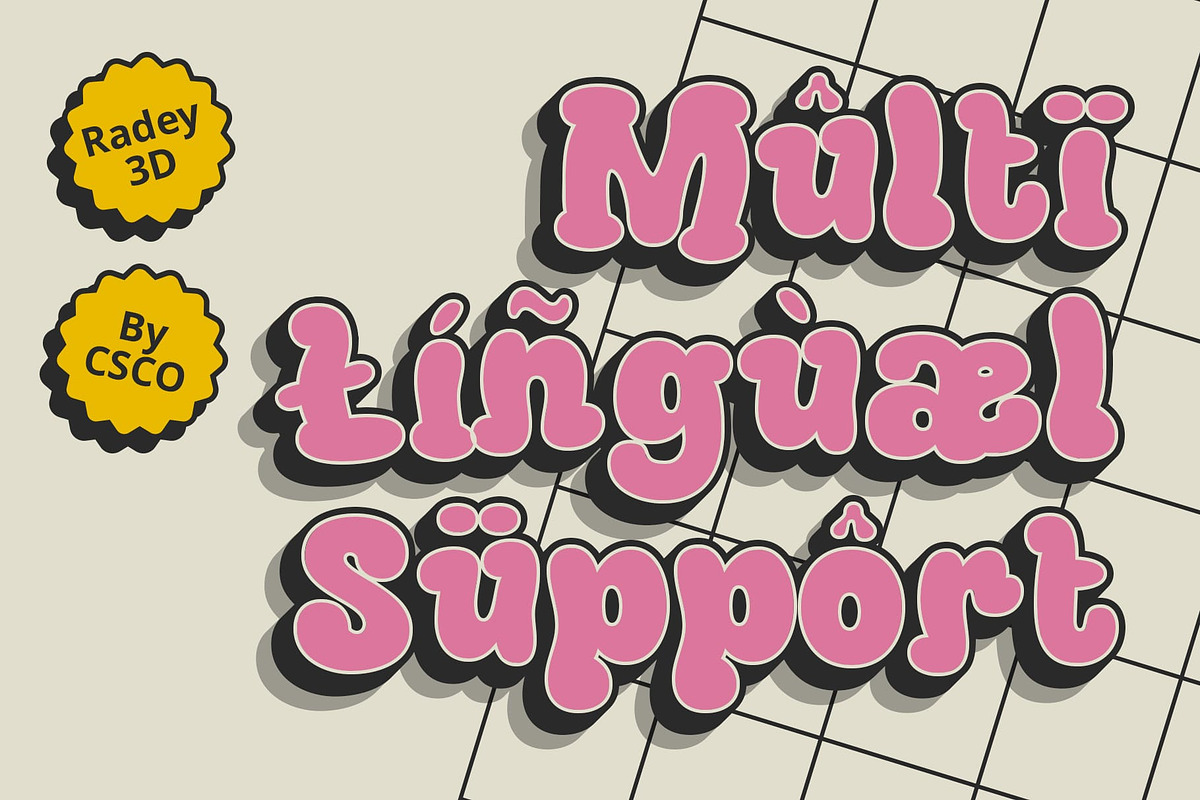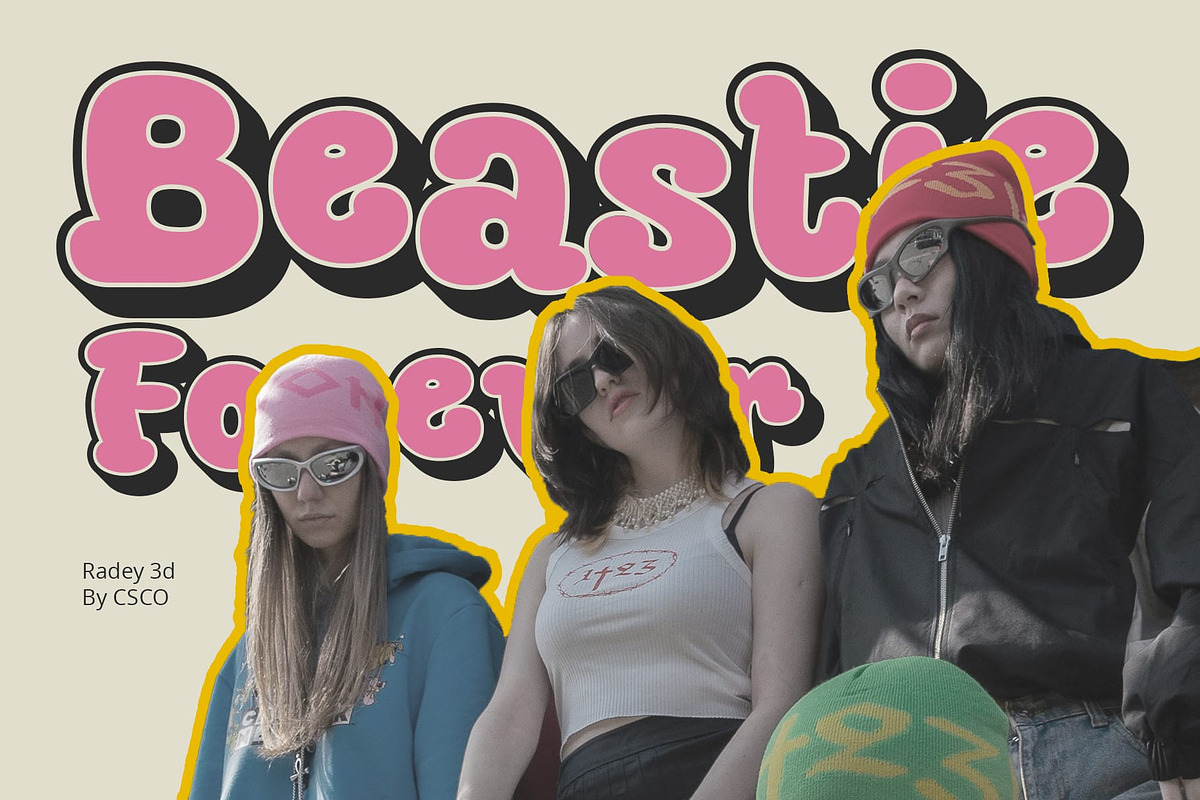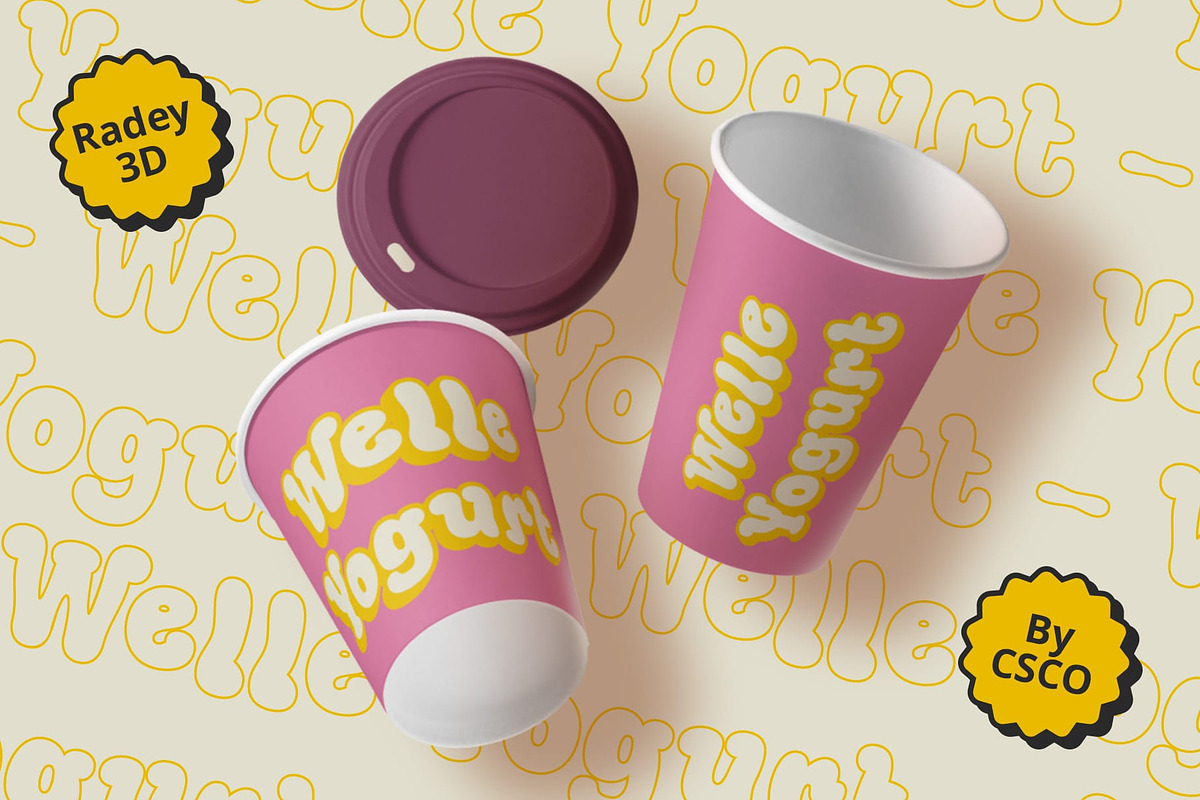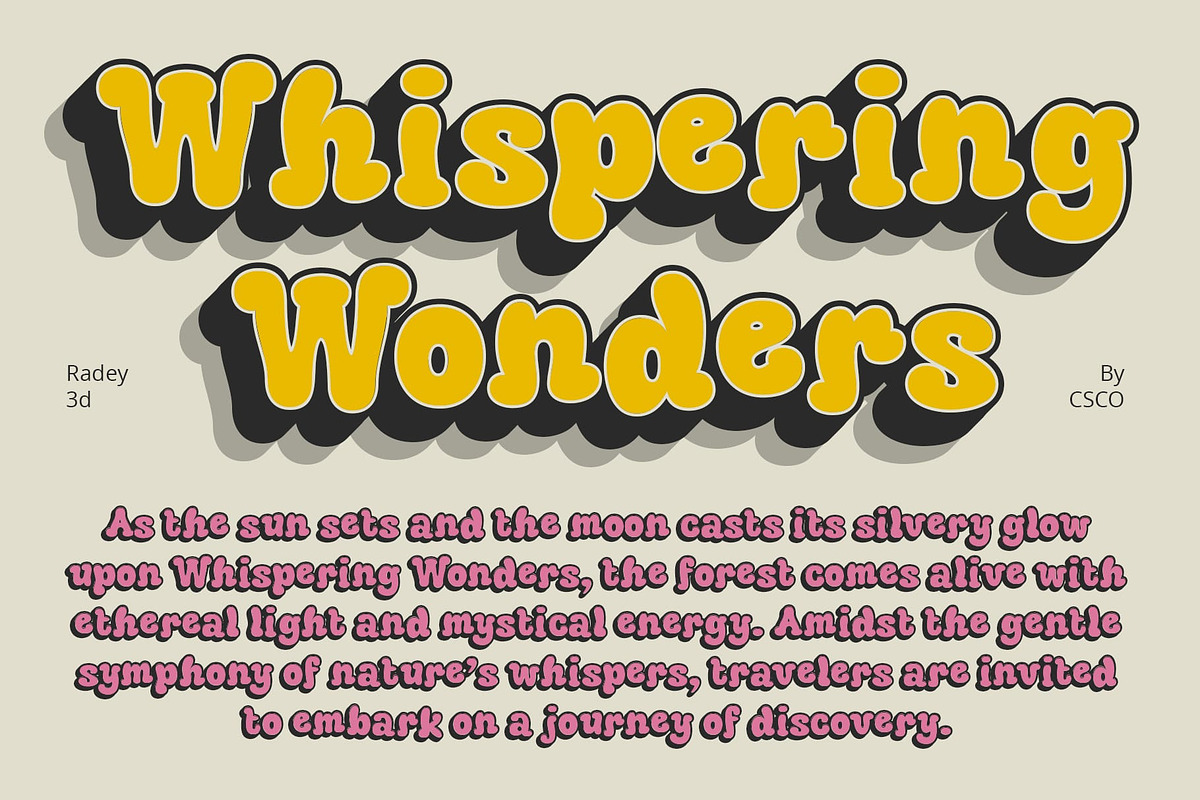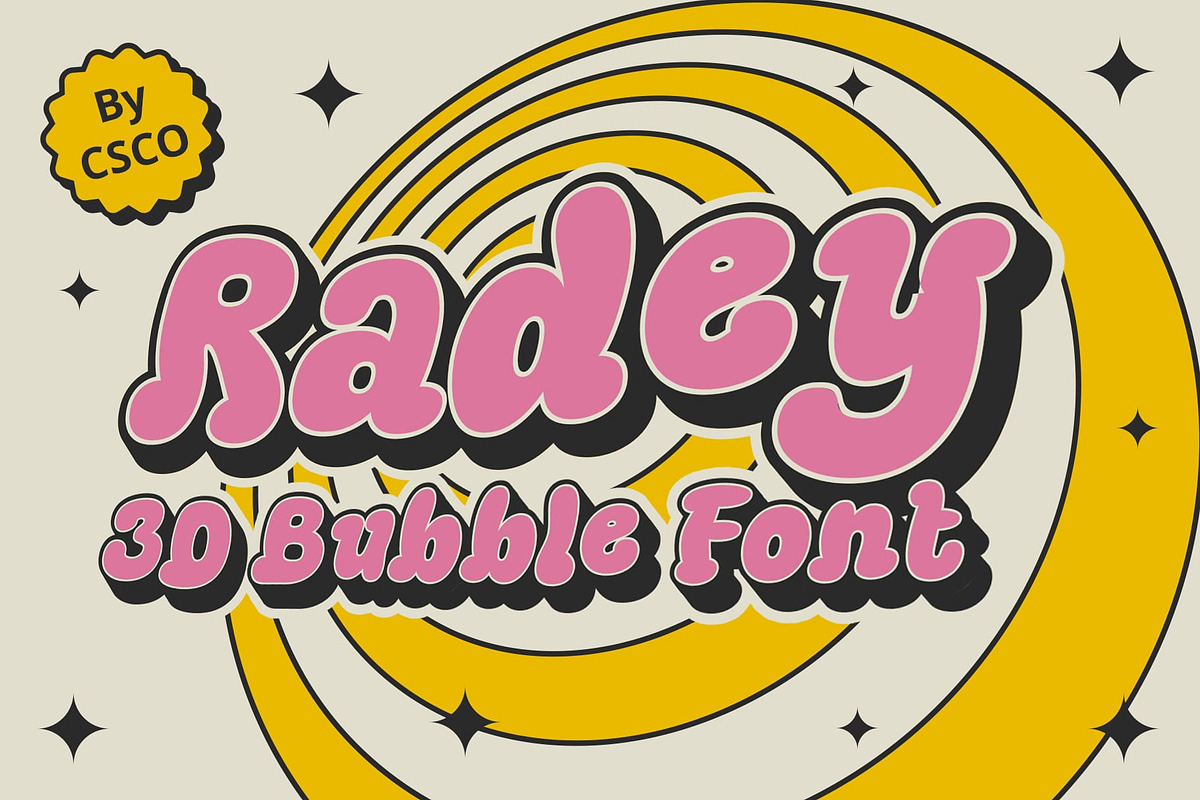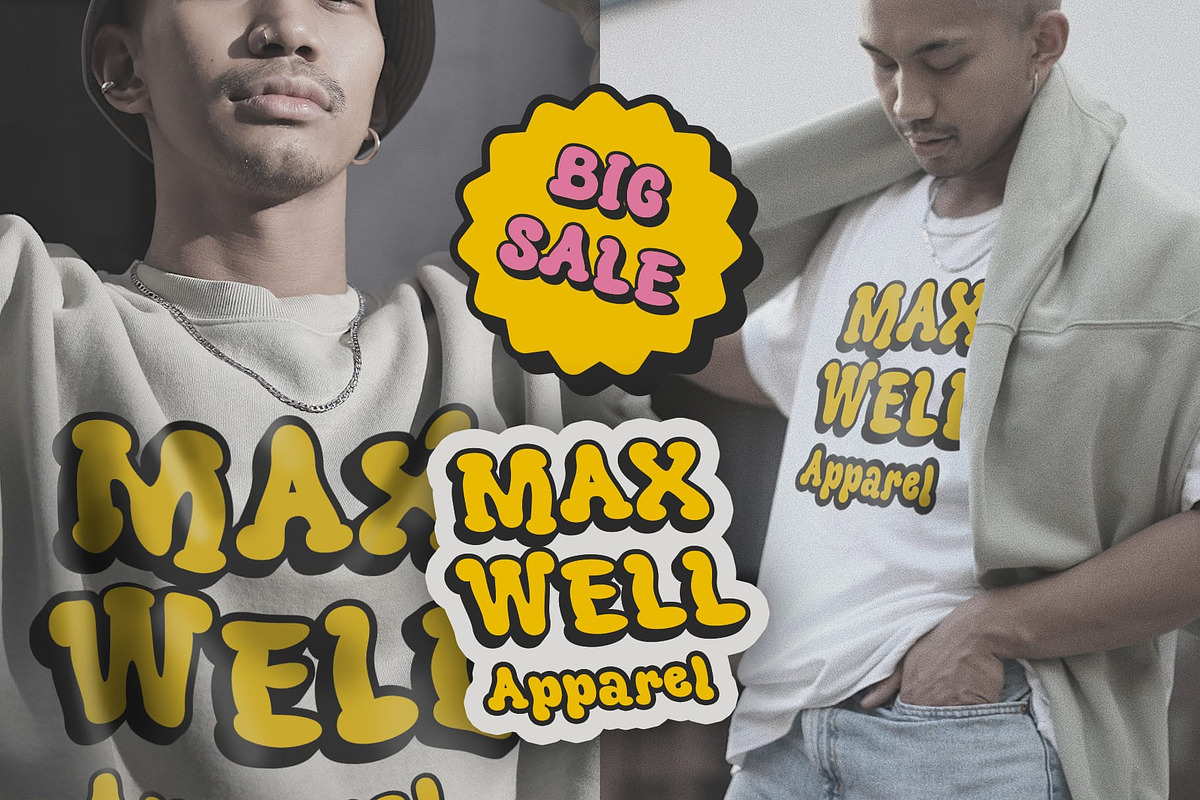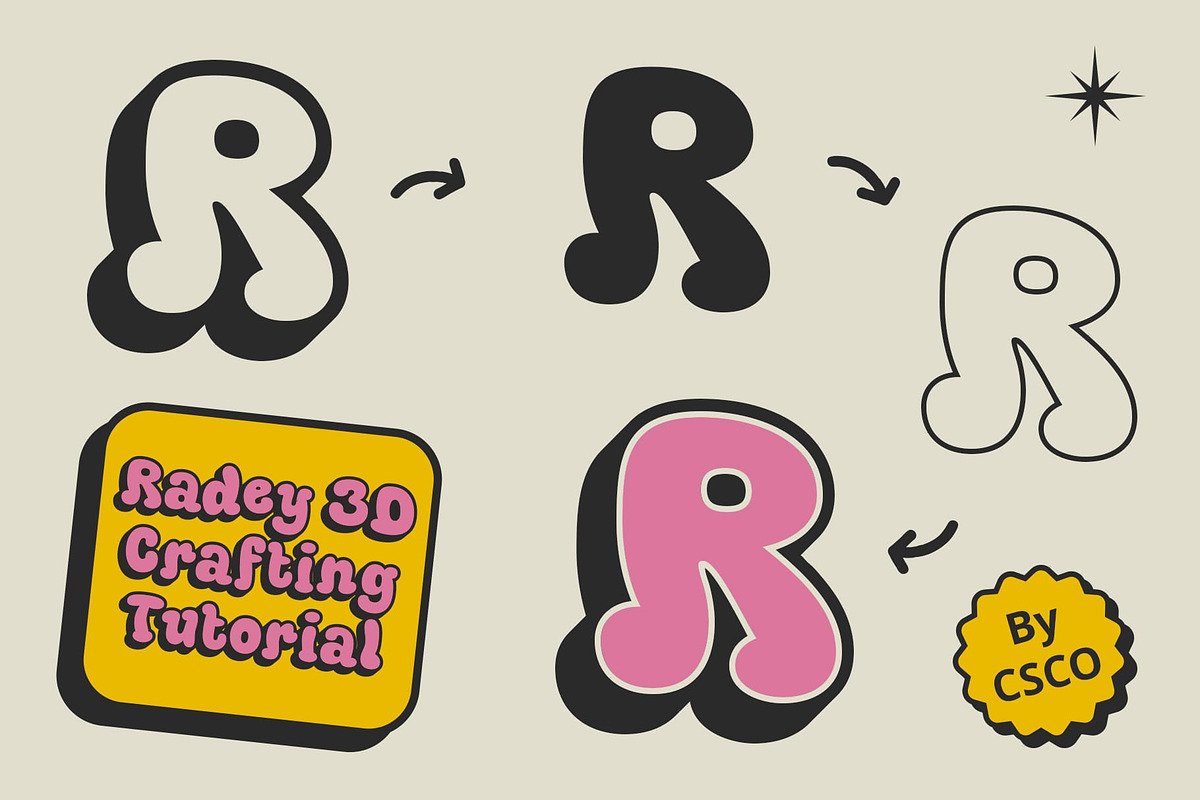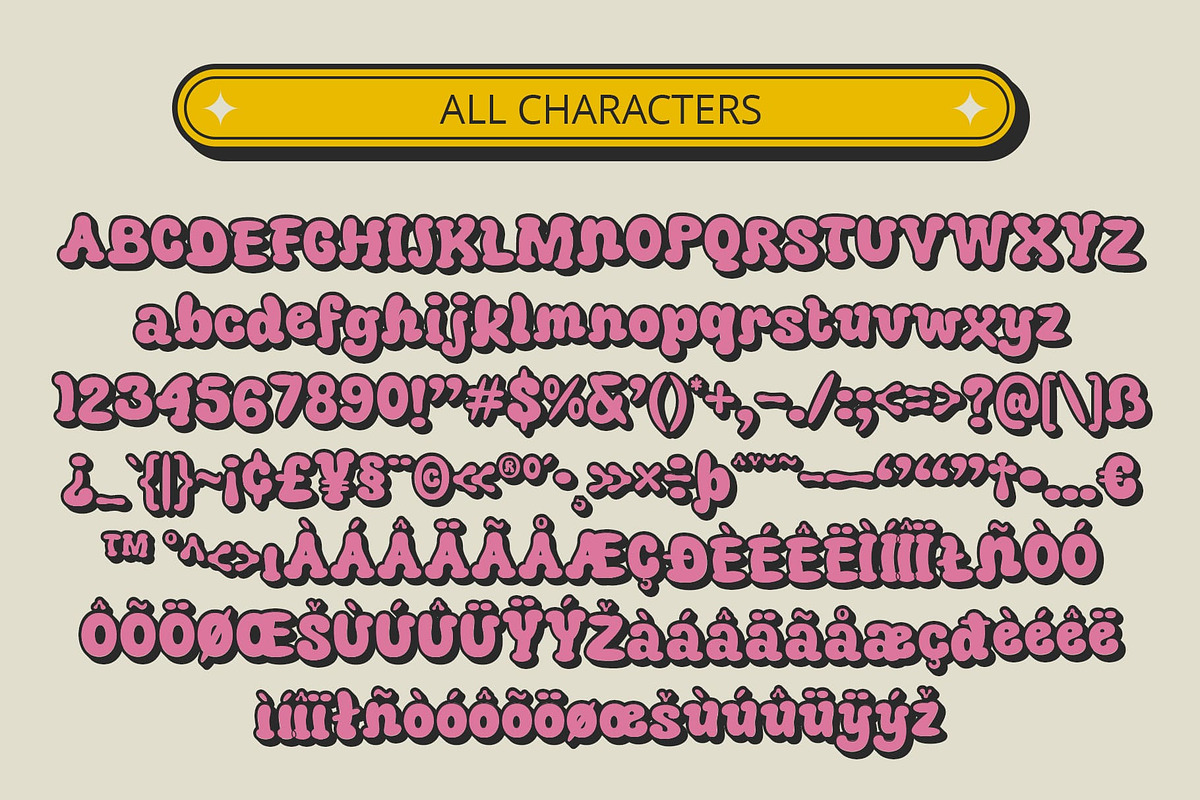
Radey 3D
Radey 3D: A Playful Bubble Display Typeface
Bubble-Inspired Design Radey 3D presents a delightful display font inspired by the whimsy of balloons. Its bubbly shapes evoke a sense of joy and playfulness, making it perfect for attention-grabbing headlines and signage.
Dynamic Outline and Extrude Effects Enhanced with dynamic outline and extrude effects, This font adds depth and dimension to its bubbly forms. The combination of these effects creates a striking visual impact that commands attention.
Tailored for Display Purposes Designed specifically for display use, This font excels in various applications, from advertisements to event promotions. Its bold, three-dimensional appearance ensures that your message pops and stands out effectively.
Versatility in Design Despite its playful appearance, This font offers versatility in design. Whether you’re creating posters, logos, or digital graphics, this font’s bubbly charm adds a touch of whimsy and character to any project.
Playfulness Meets Impact This font combines the playful charm of bubble-inspired design with dynamic outline and extrude effects, resulting in a font that is both fun and impactful for display purposes. Elevate your designs with the lively energy of Radey 3D and captivate your audience with its cheerful vibe.
- Radey Regular
- Radey Outline
- Radey Extrude Right
- Radey Extrude Left